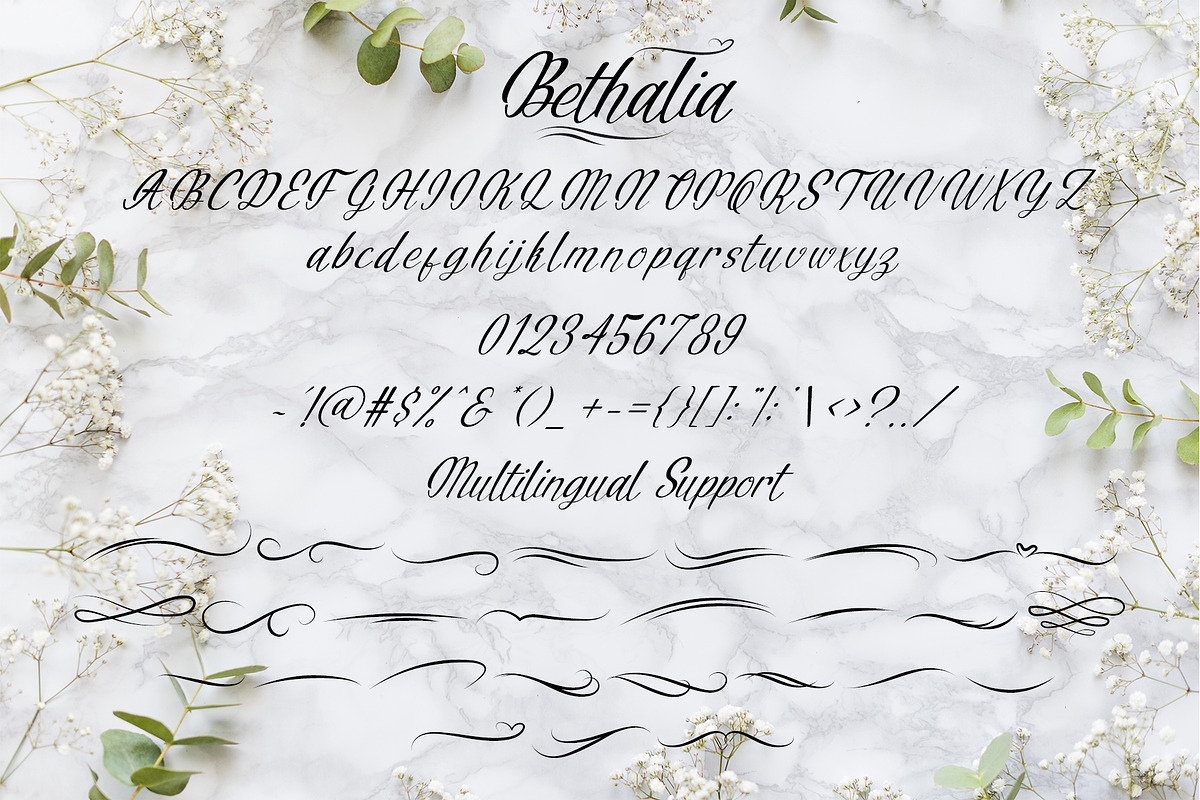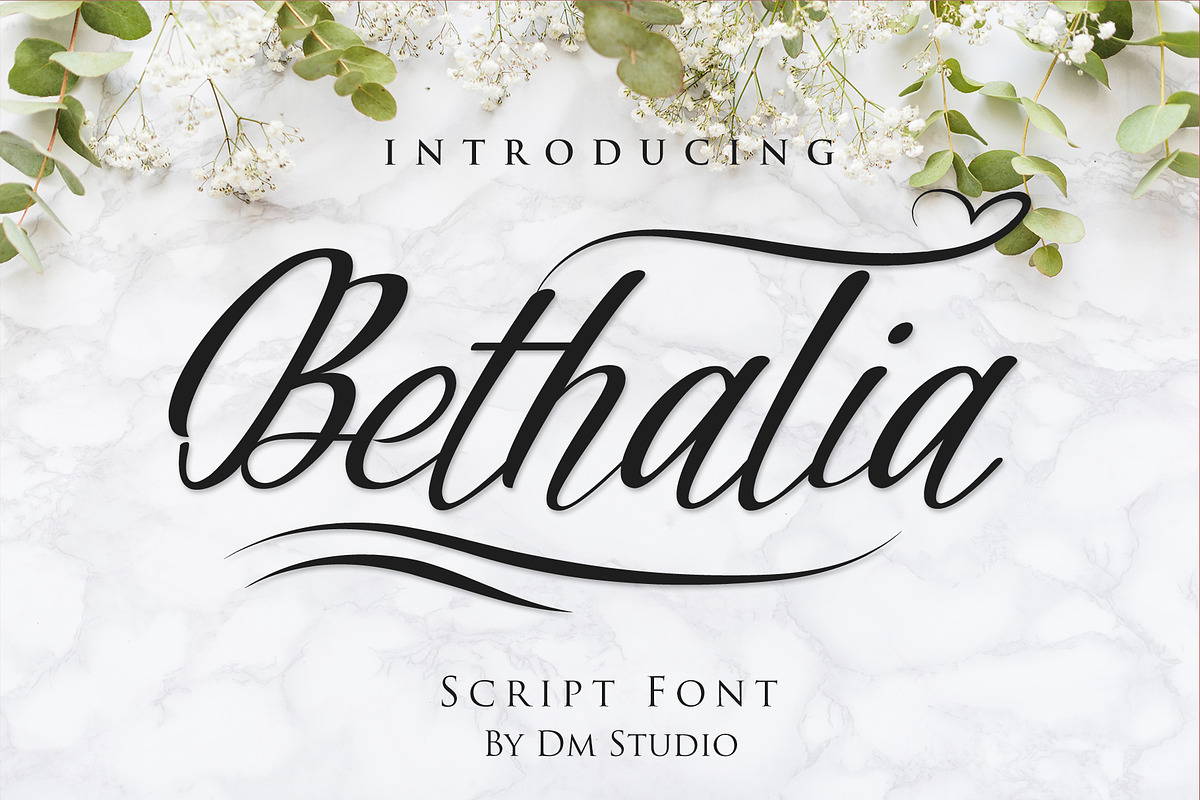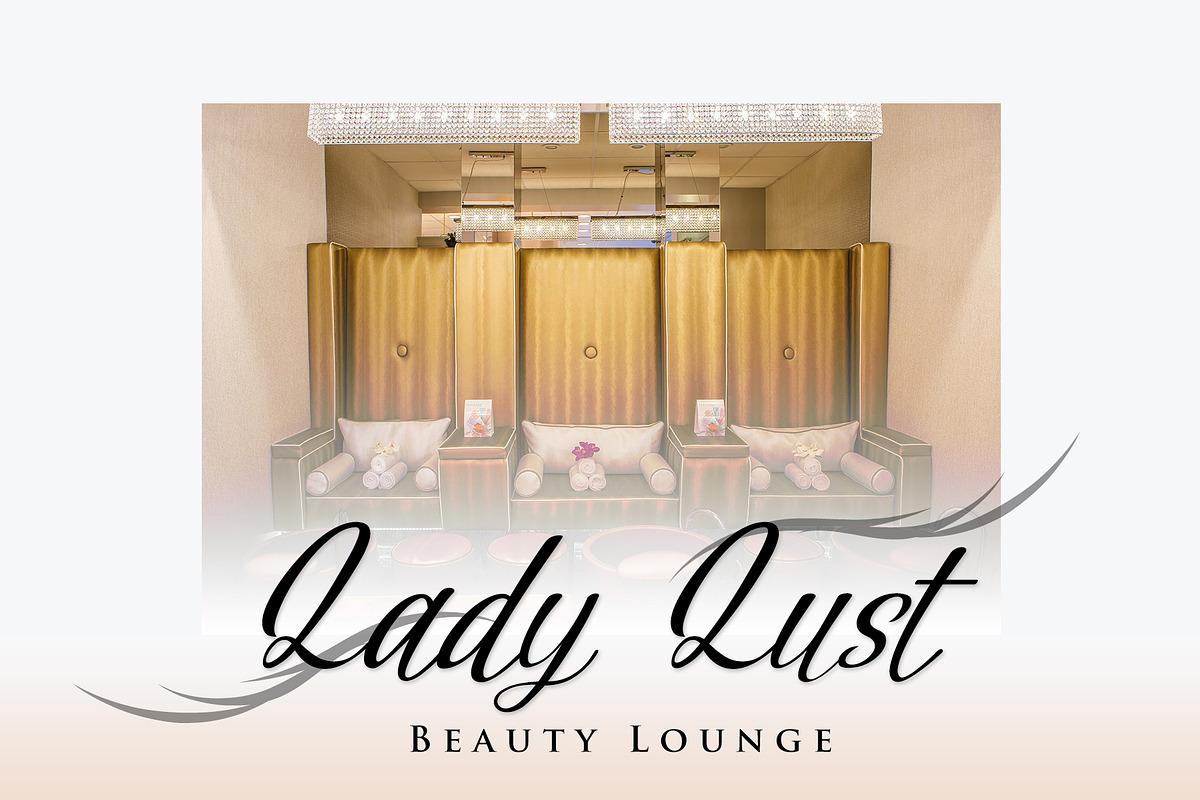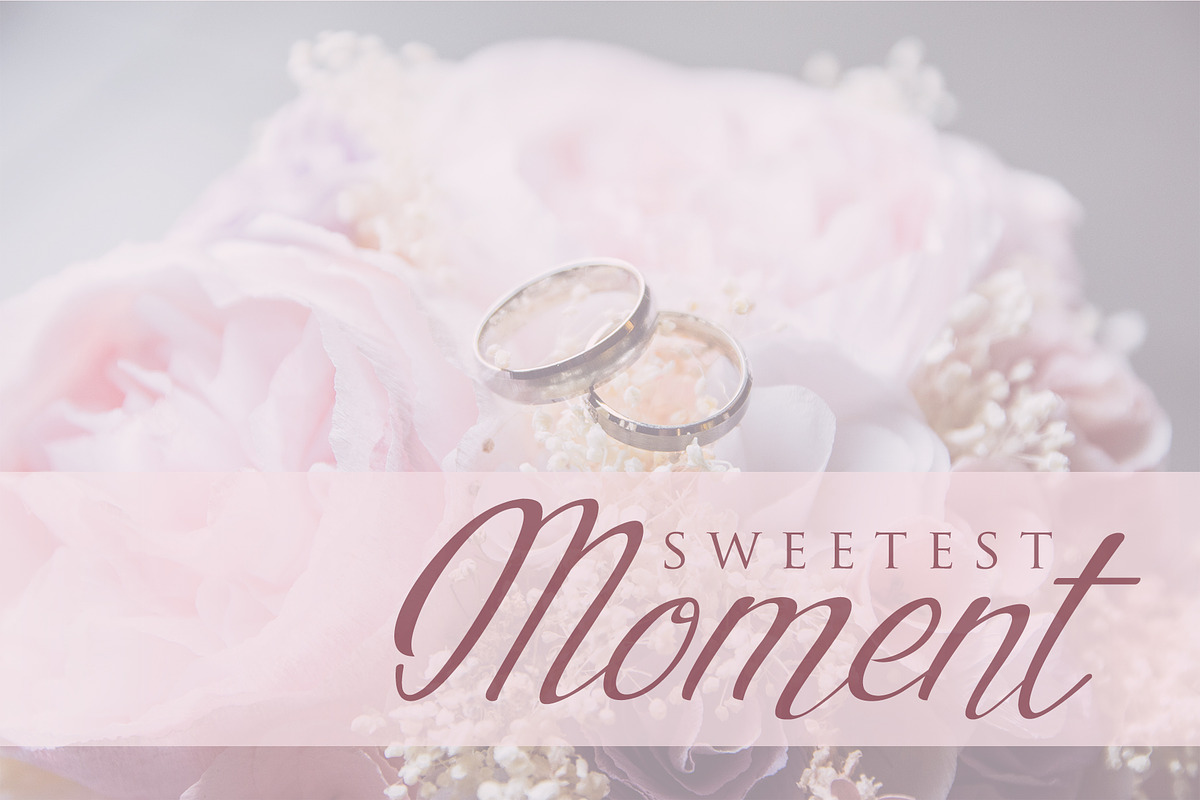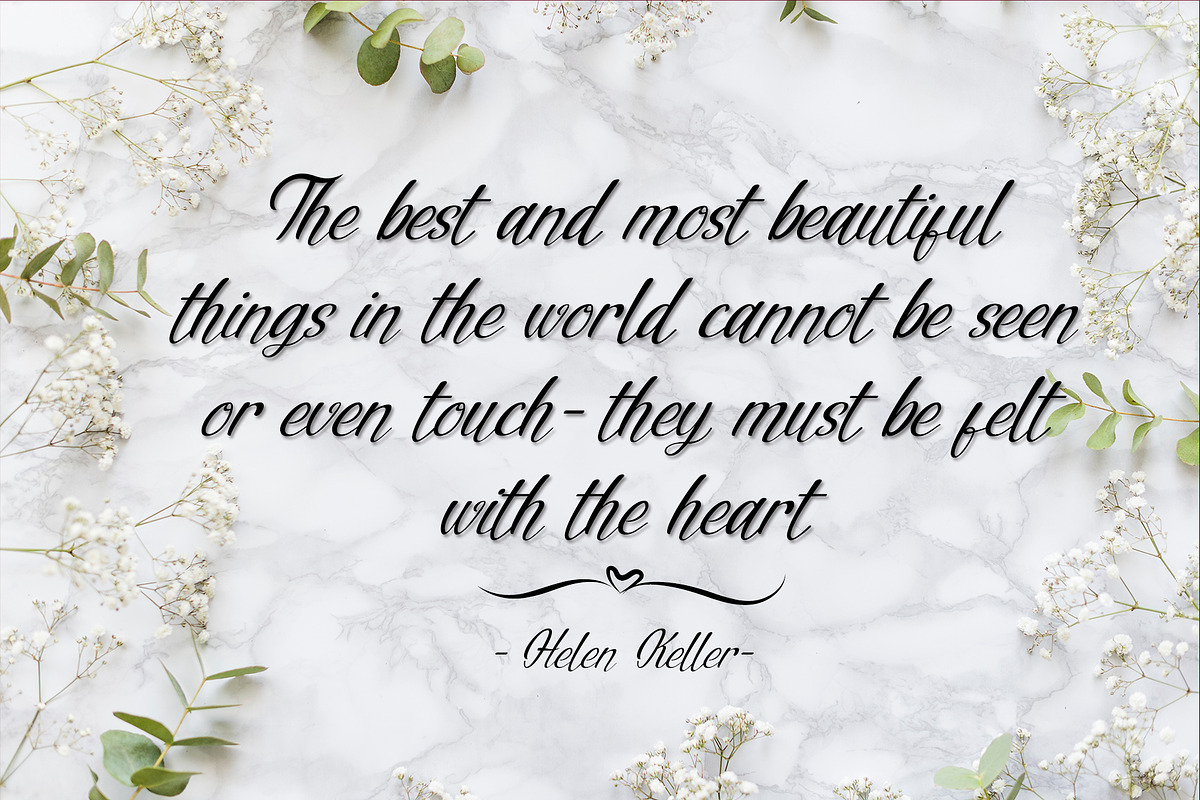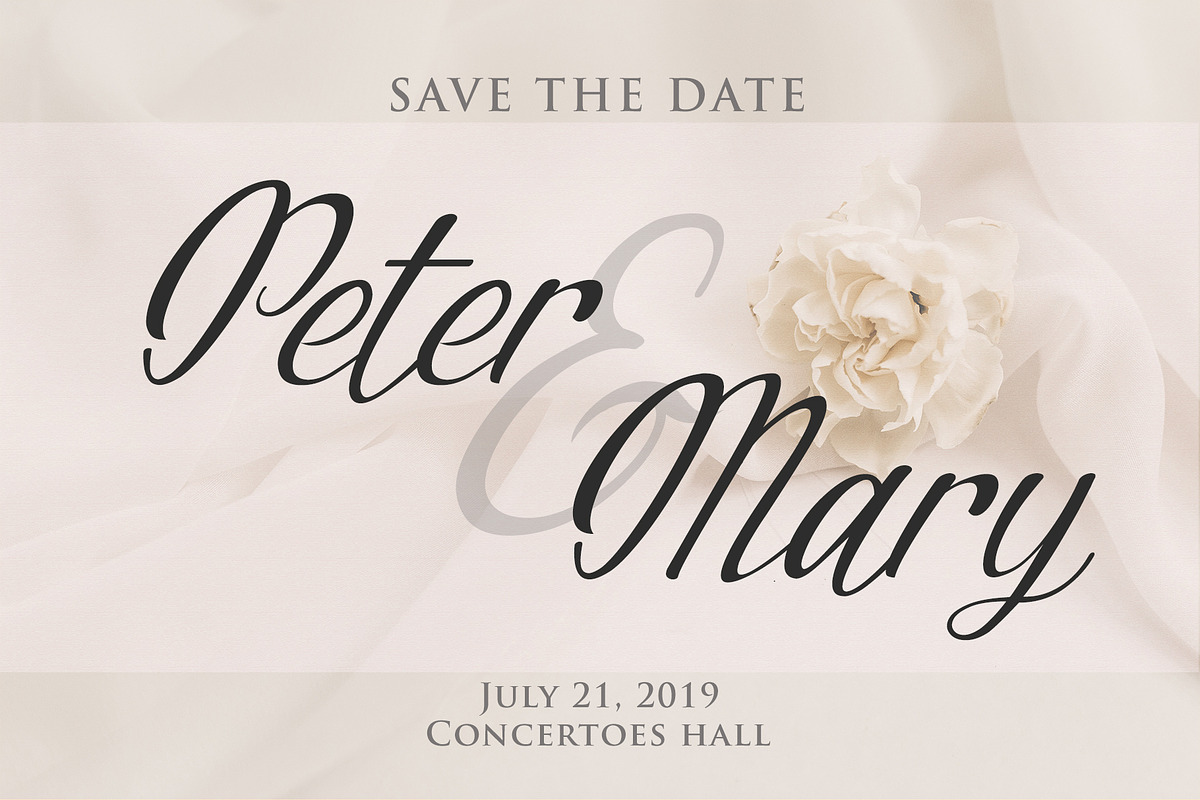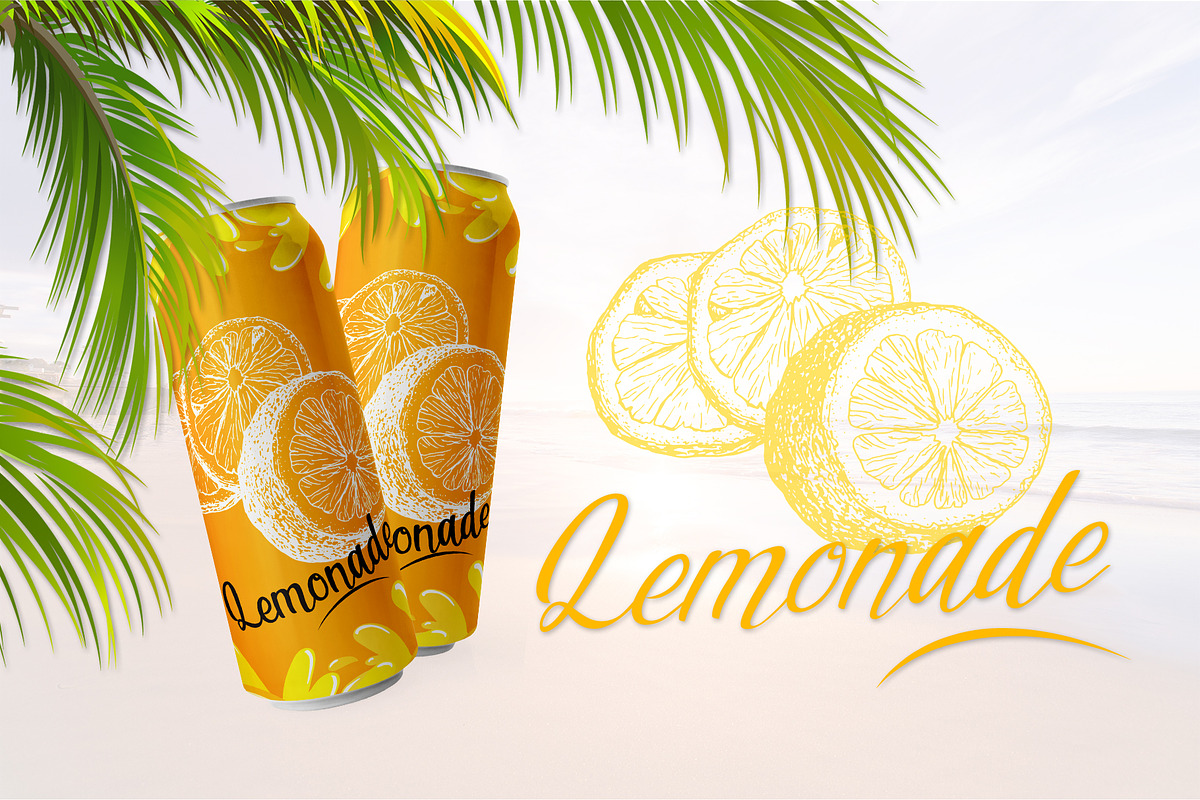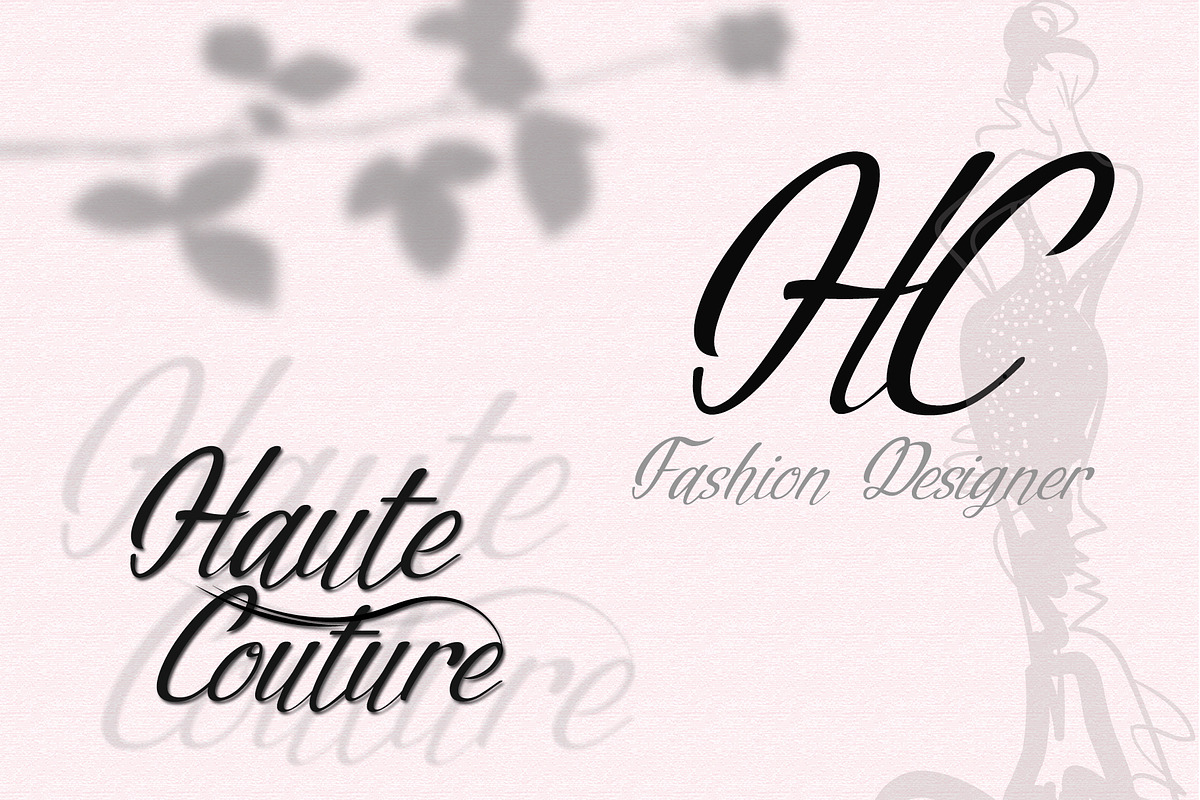
Bethalia Script Font
Bethalia Script is a simple, clean, casual script font. Suitable for logo, brand, packaging, signage, quotes, and some feminine designs, girly stuffs, etc. Also comes with extra underline swashes to make it more beautiful. Features :
Symbols & Punctuations
Multilingual Supports
- Also comes with extra underline swashes to make it more beautiful.
- Uppercase, lowercase
- Symbols & Punctuations
- Multilingual Supports
- Extra 26 Swashes
Why Bethalia Script Font is worth a look
Bethalia Script Font by Dm Studio fits naturally into Branding, posters, packaging, typography.